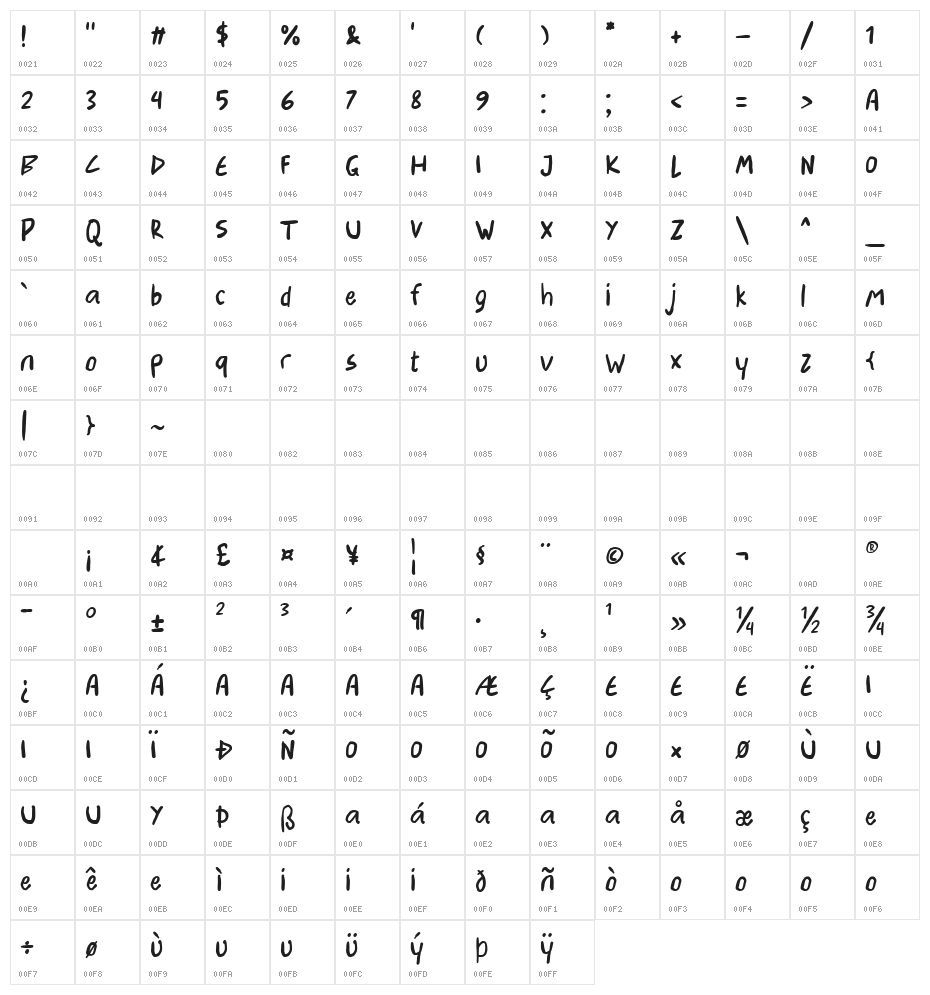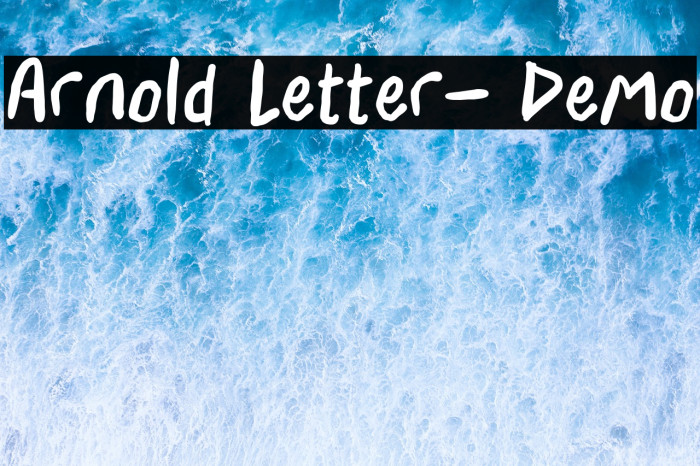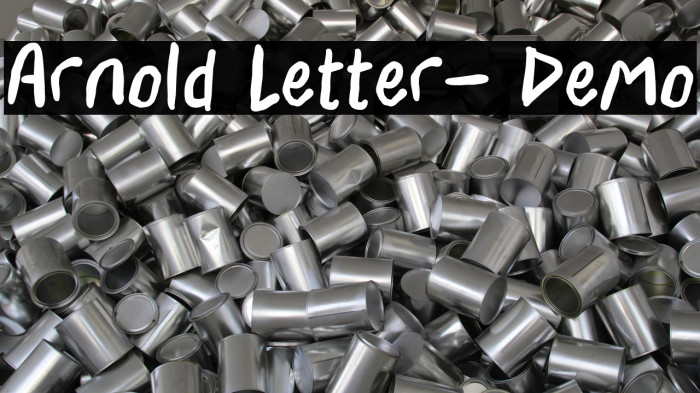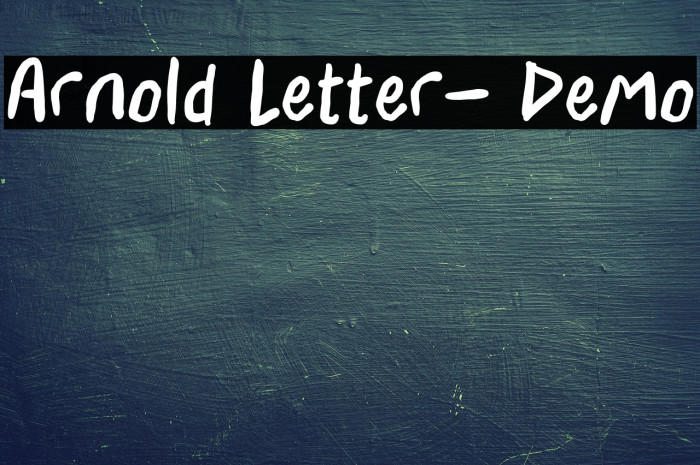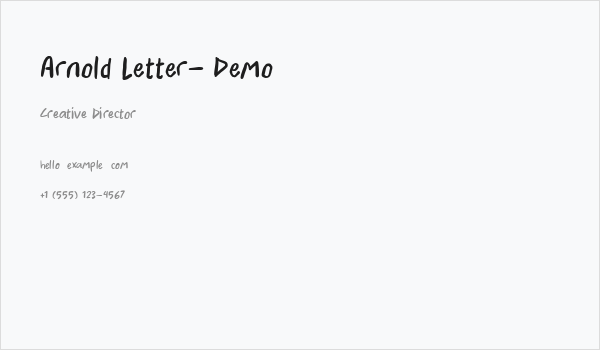
Arnold Letter- Demo Font
Arnold Letter- Demo Description
A handwritten, playful font with irregular strokes and a casual appearance.
| Use Case | Headlines, Informal text |
| Proposed Projects | Greeting cards, informal invitations, children's books. |